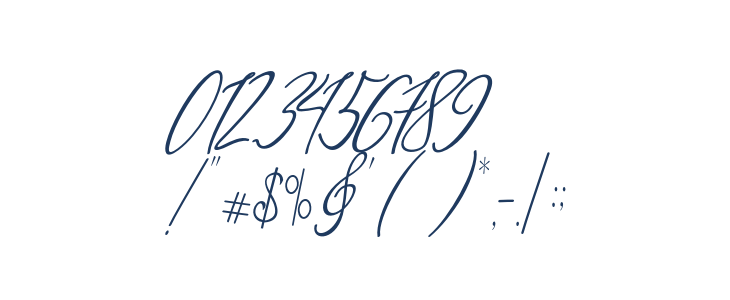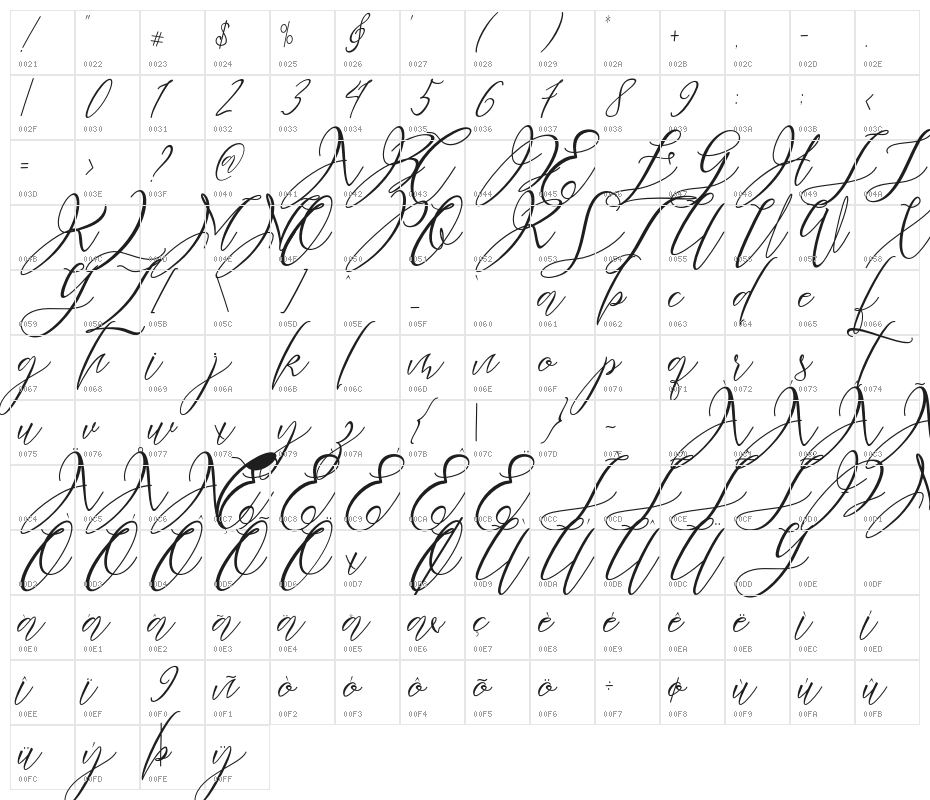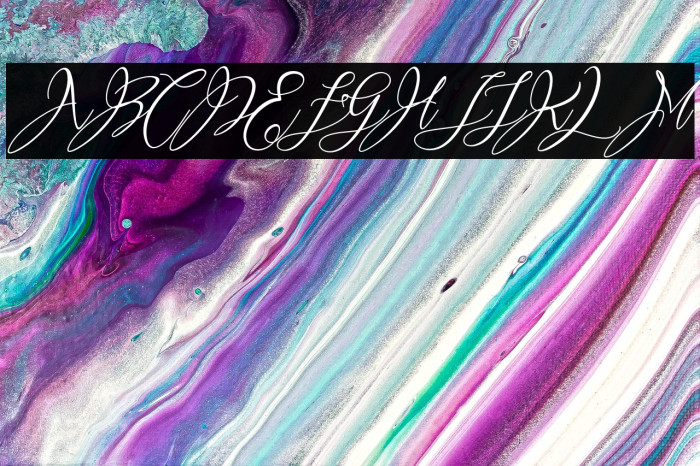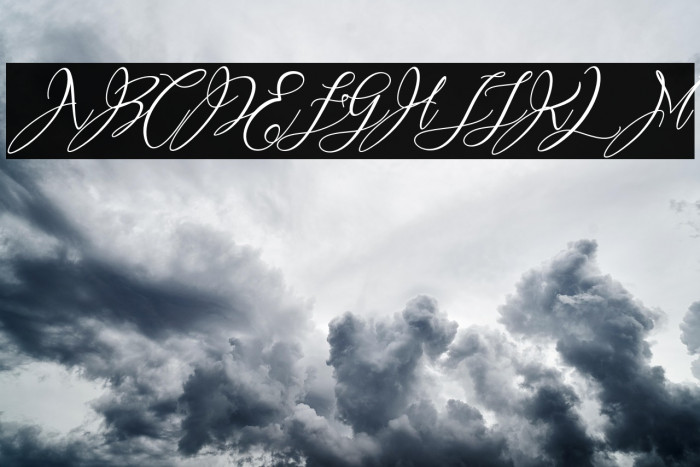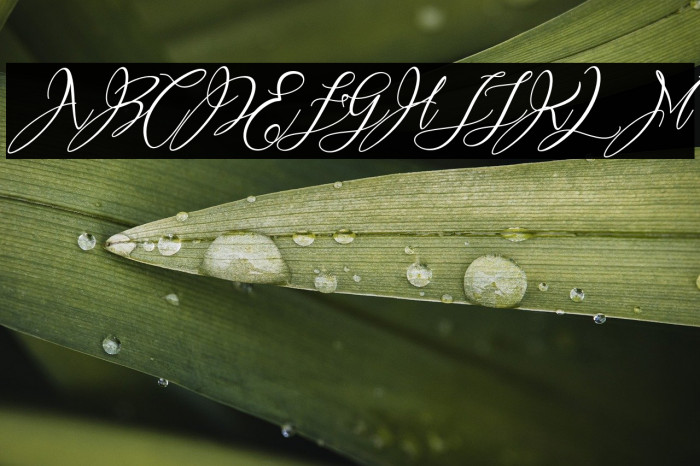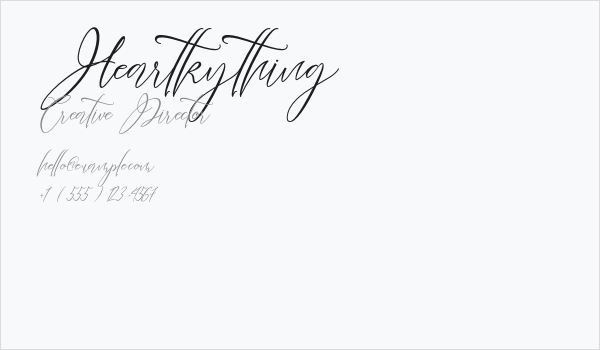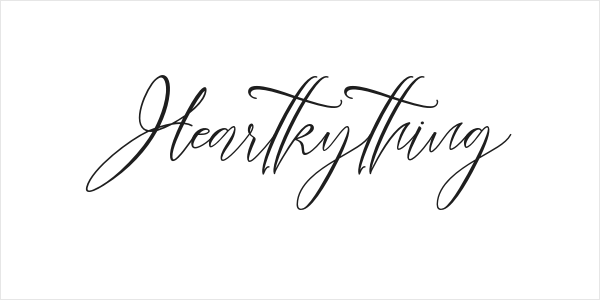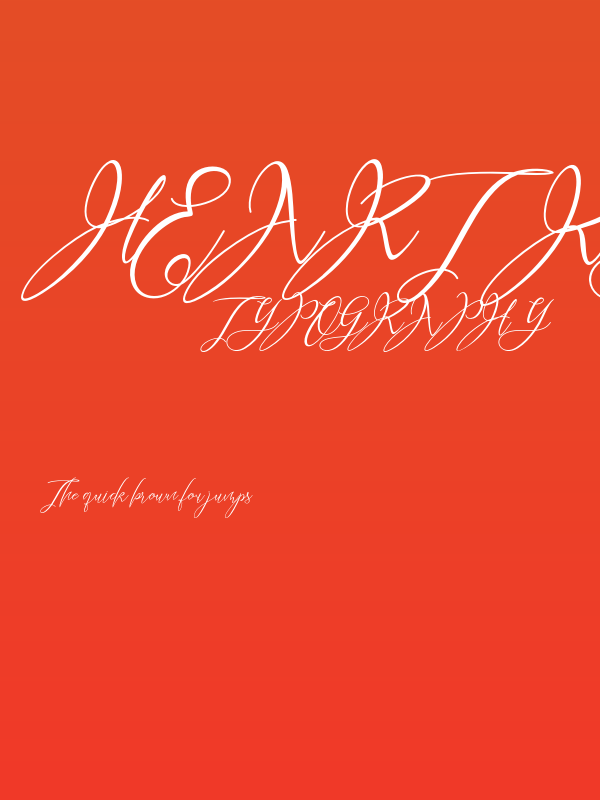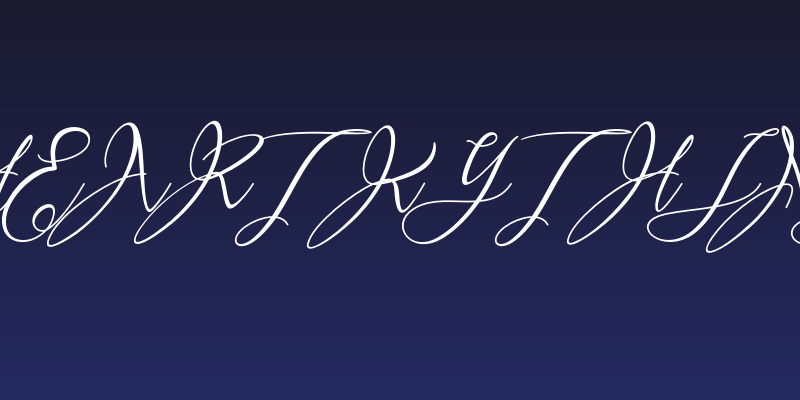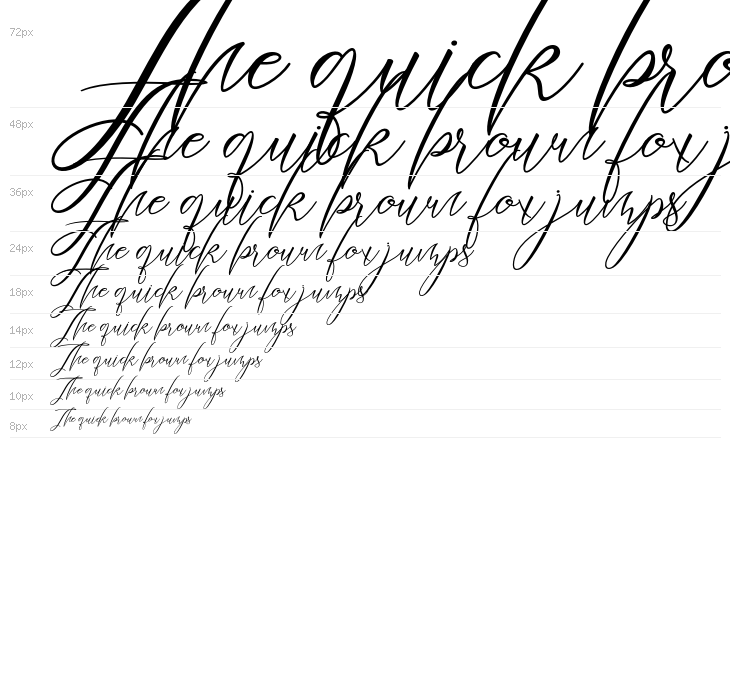
Heartkything Font
Heartkything Description
This font features an elegant and flowing script style, characterized by its intricate and interconnected letterforms. The uppercase letters exhibit a graceful, sweeping motion, while the lowercase letters maintain a consistent fluidity, enhancing the overall aesthetic. The numerals and special characters are designed with the same attention to detail, ensuring a cohesive look across all elements. The font's delicate strokes and artistic flair make it suitable for projects that require a touch of sophistication and elegance.
| Proposed Projects | Ideal for wedding invitations, elegant branding, greeting cards, and high-end product packaging. |